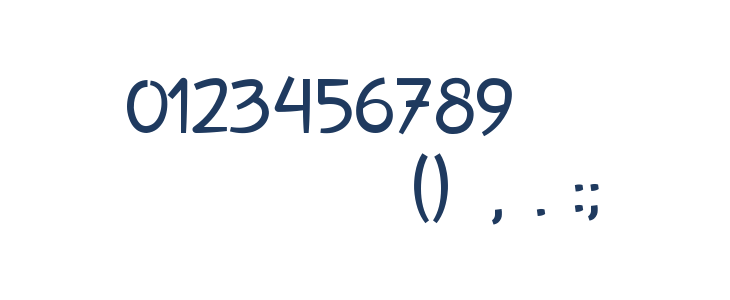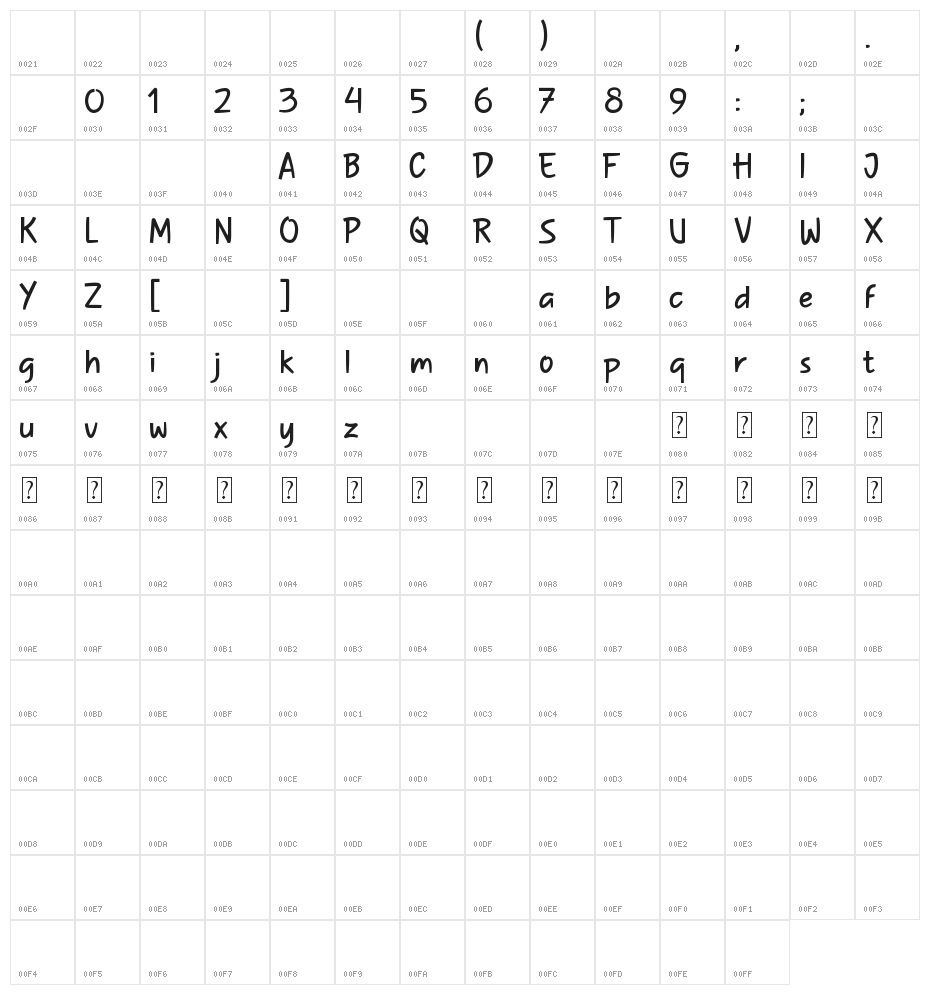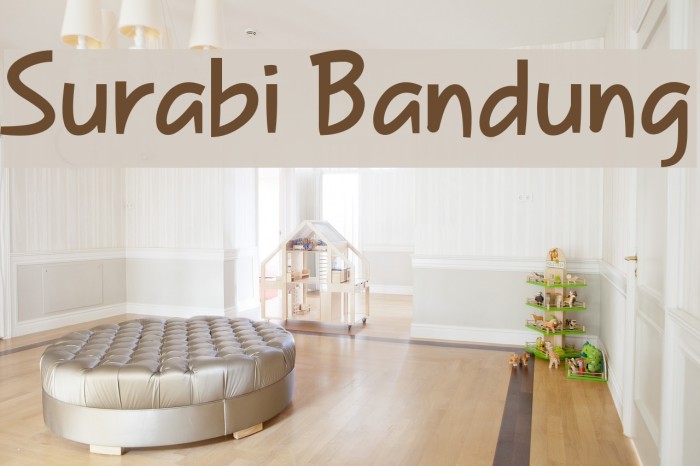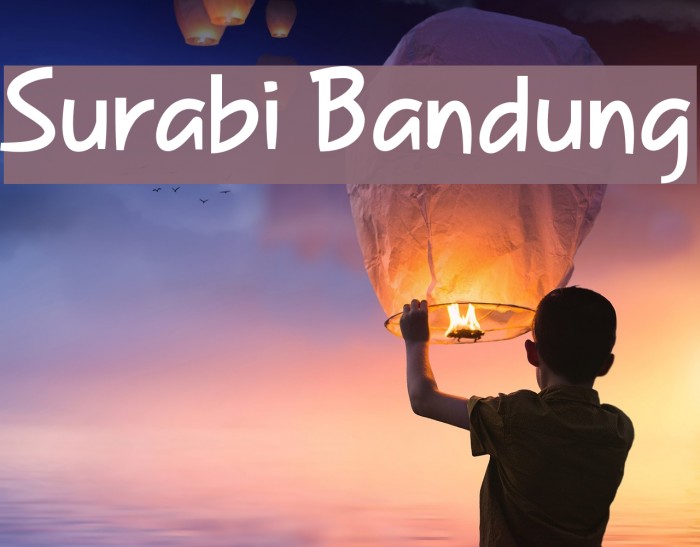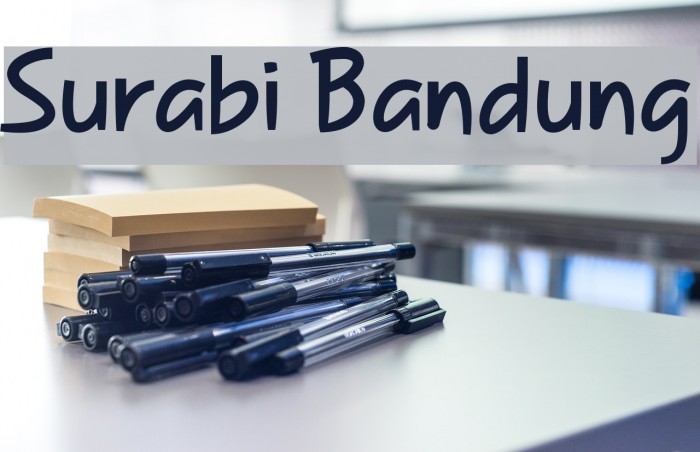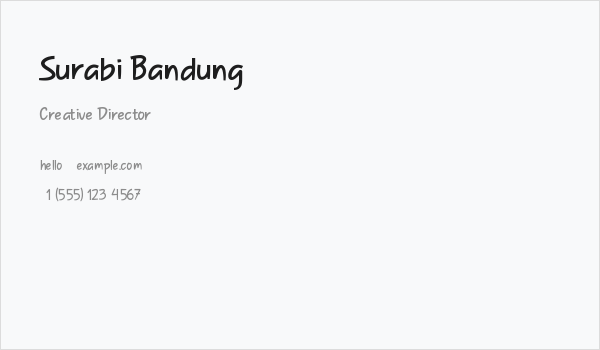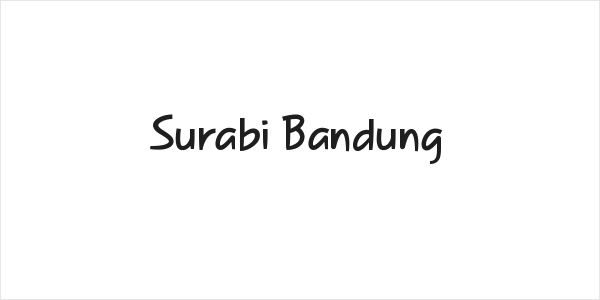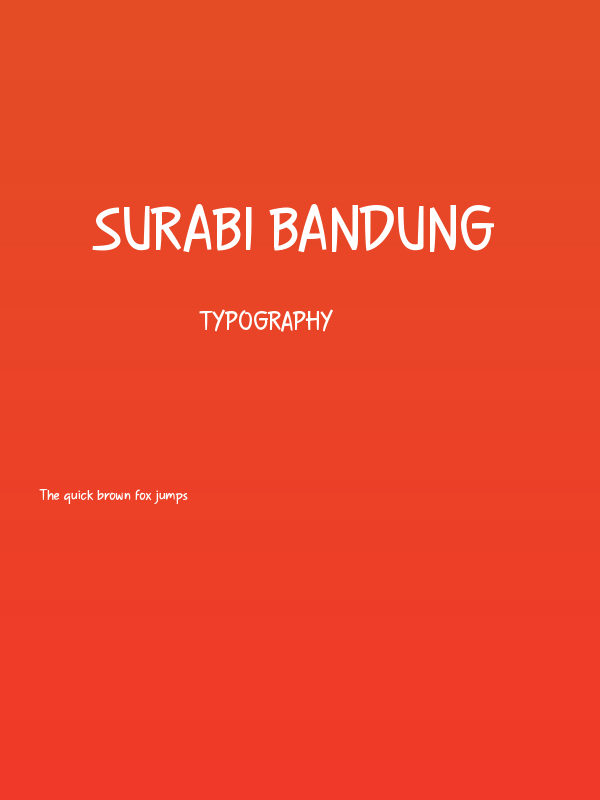
Surabi Bandung Font
Surabi Bandung Description
This font features a playful and casual handwritten style, characterized by its smooth curves and slightly irregular strokes. The letters are bold and rounded, giving a friendly and approachable appearance. The uppercase and lowercase characters maintain a consistent flow, while the numerals and special characters complement the overall design. The font's informal nature makes it suitable for projects that require a personal touch or a relaxed vibe.
| Proposed Projects | Ideal for greeting cards, children's books, casual branding, and social media graphics. |